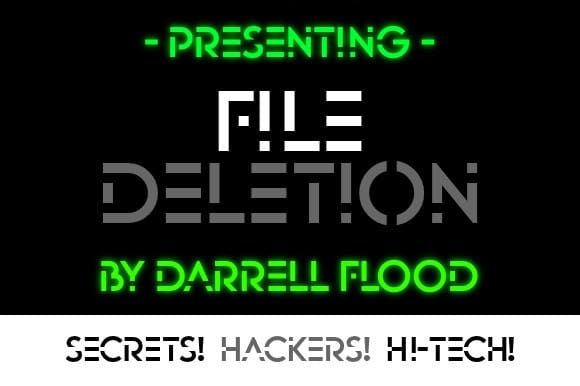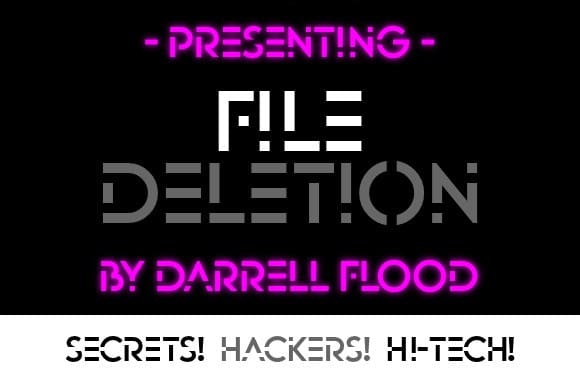
File Deletion Font
File Deletion Font, is a futuristic science fiction font in a slick, half deleted style. Full character alternates can be found in the upper case letters. Perfect for hacker themes, secret missions and general modern use!